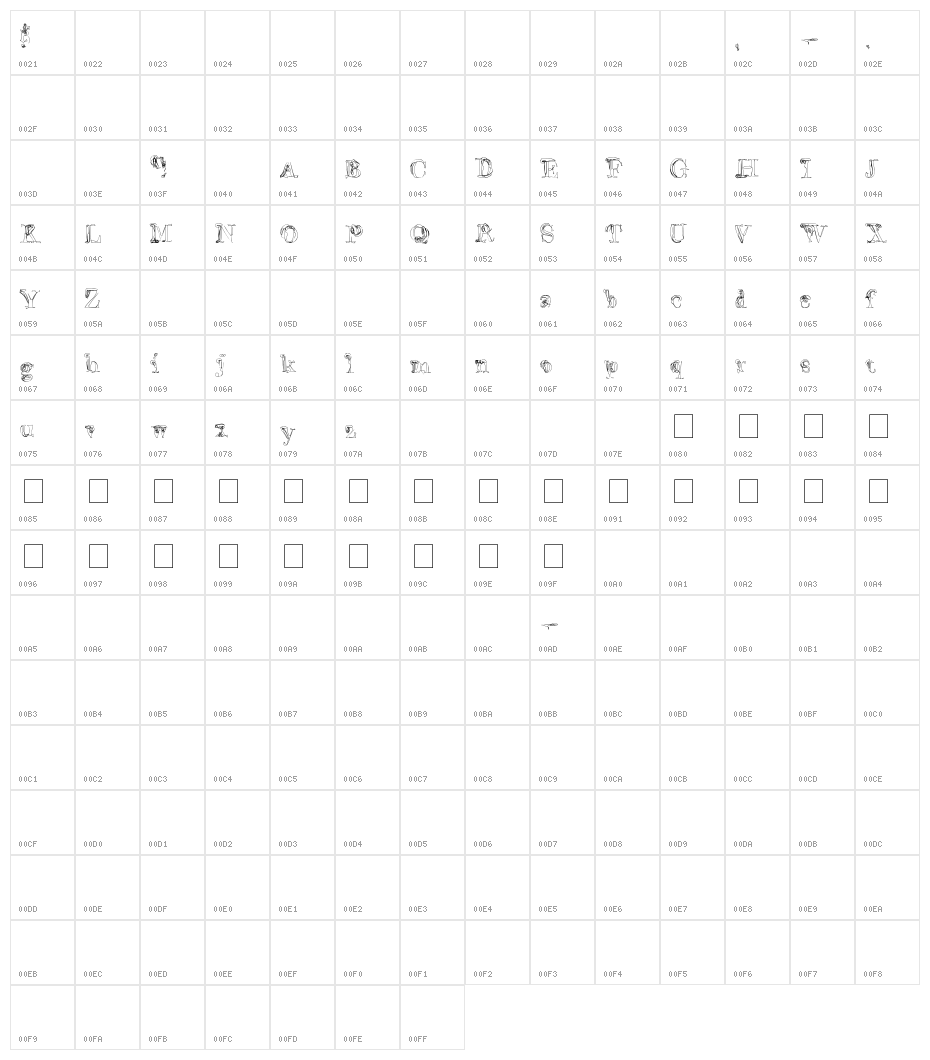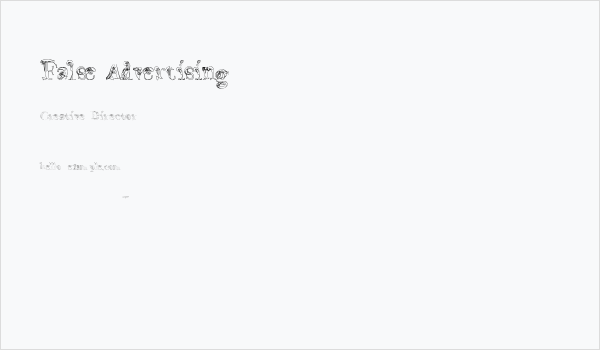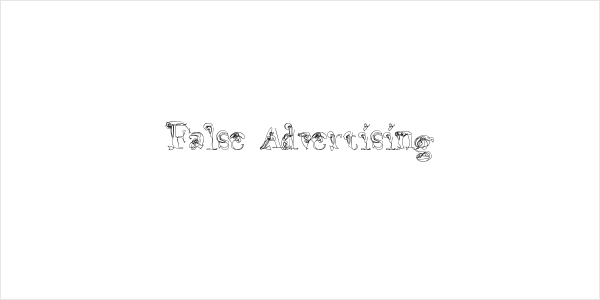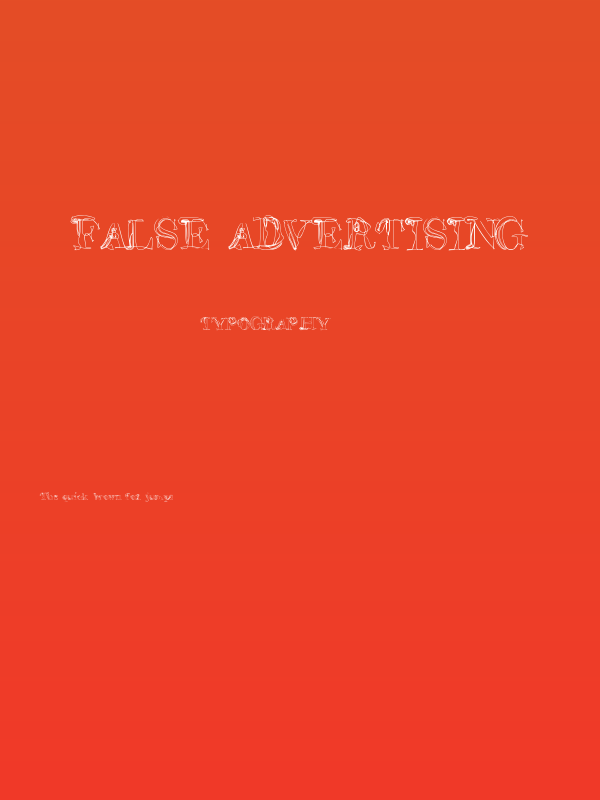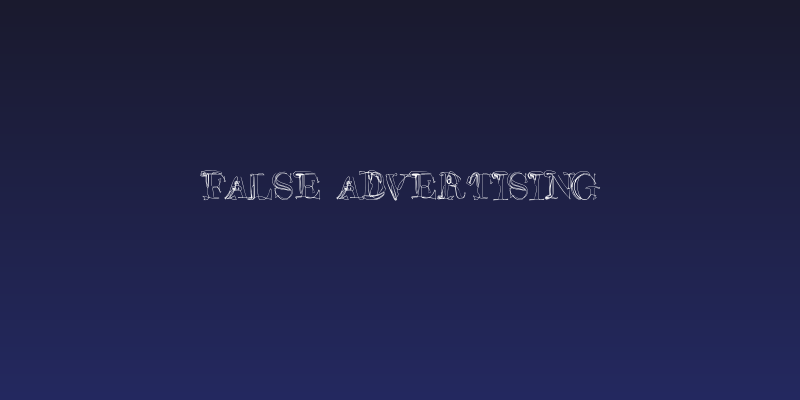
False Advertising Font
False Advertising Description
This font features a highly decorative and artistic style, characterized by intricate line work and a sketch-like appearance. Each character is uniquely crafted with swirling lines and loops, giving it a hand-drawn, whimsical feel. The uppercase and lowercase letters maintain a consistent artistic theme, with varying thickness in strokes that add to the overall complexity and visual interest. The numbers and special characters follow the same elaborate design, making the font suitable for creative and expressive projects. Its distinct style makes it stand out, ideal for use in designs that require a touch of artistry and flair.
Use CaseLogos, Posters, Artistic Designs
Proposed ProjectsIdeal for artistic projects, posters, album covers, and creative branding.